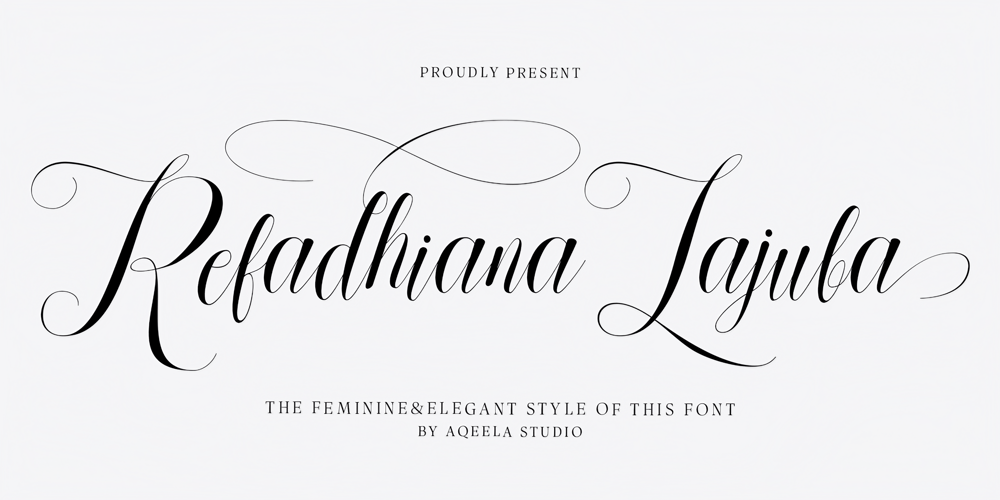
Refadhiana Lajuba Font Family was designed by Muhammad Nasir and published by Aqeela Studio. Refadhiana Lajuba contains 1 styles and family package options. Reladiana Lajuta: Where grace whispers on the page. This font captures the essence of feminine elegance with its flowing curves and delicate serifs. It’s a design that evokes a sense of timeless beauty and gentle sophistication, perfect for projects that require a touch of heartfelt refinement.